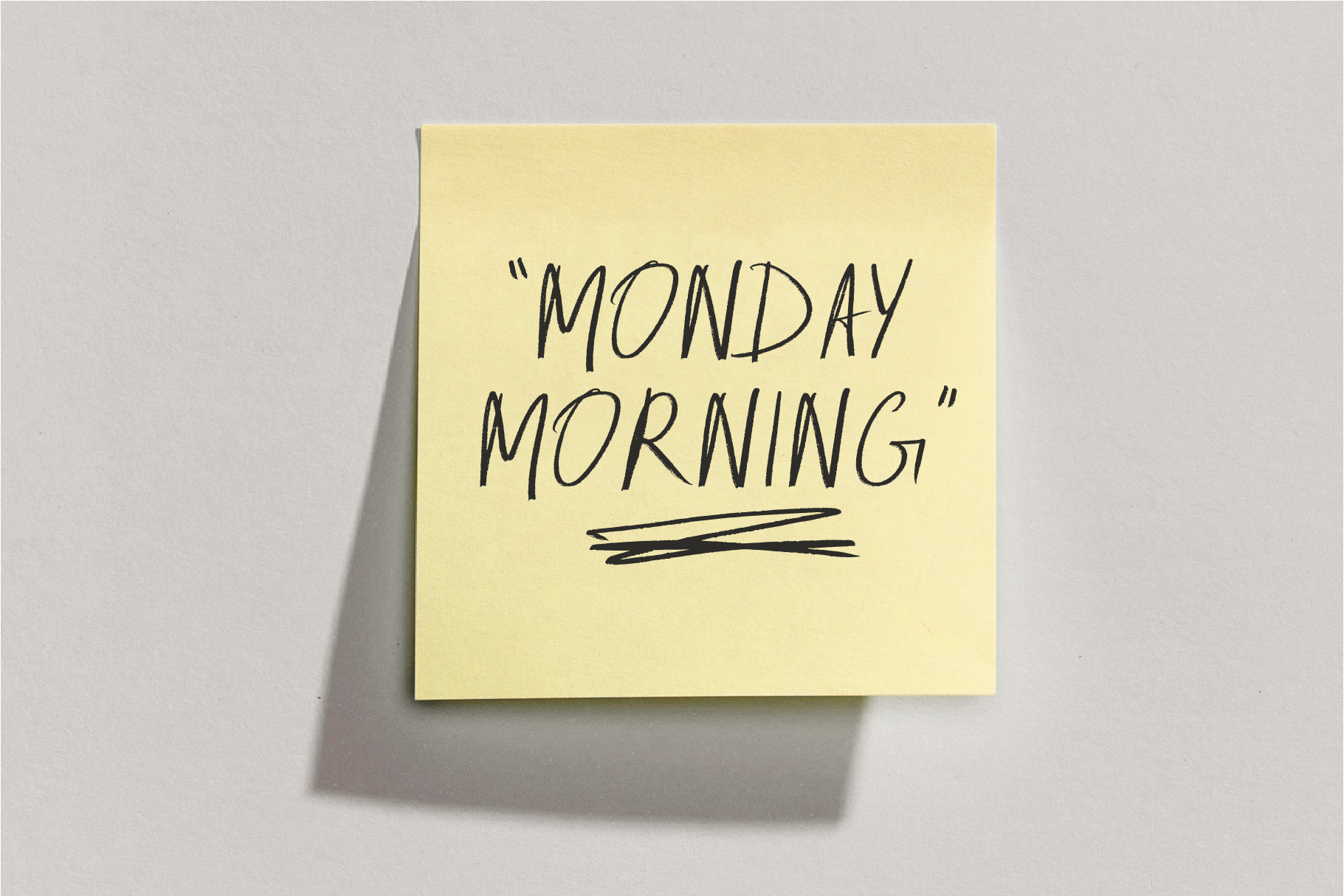
Monday Morning Handwriting Font
It's Monday again. Time to rush our breakfast, scribble our to-do list, grocery list, and head to work. Upper-case characters are bold and hurried, lower-case characters are kinda tired and moody, it's just Monday morning...! This font also includes ligatures to be quicker with our writing, no one has time in the morning to write every letter.
The ttf font file includes a few scribbles that are already mapped to the keyboard: open "glyphs" in illustrator to view all characters. Each character has a subtle texture that replicates marker and pencil effect.